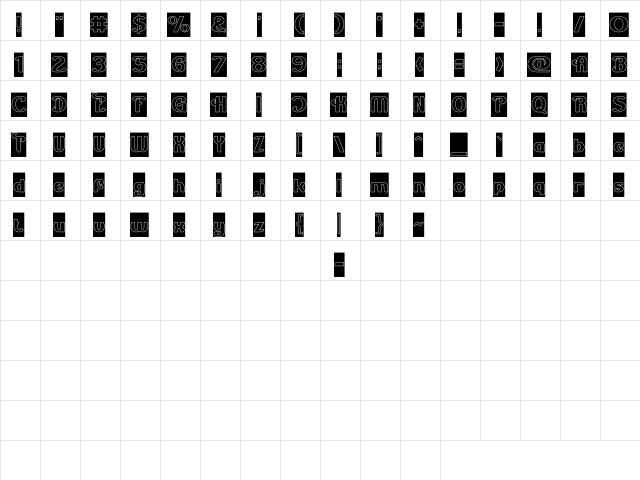
The Revolutions-Hollow-Inverse Regular
Design Context for The Revolutions-Hollow-Inverse Typeface
The Revolutions-Hollow-Inverse is a composed and adaptable typeface that performs quietly and consistently across a wide range of design contexts.